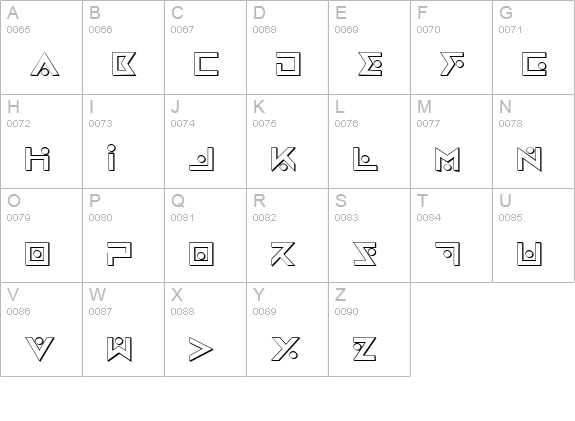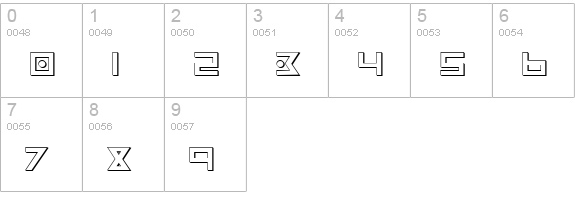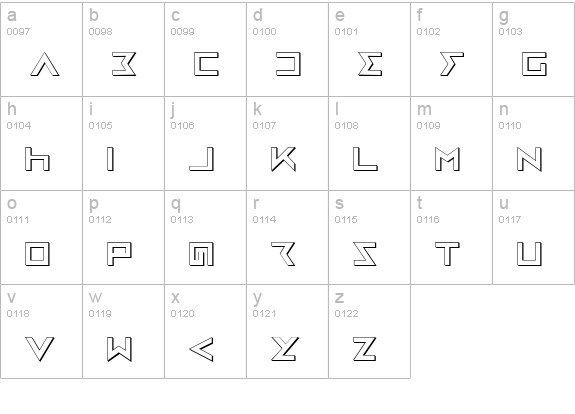
Iron Cobra 3D font is a bold and striking typeface that exudes power and strength. With its three-dimensional effect, this font adds depth and dimension to any design project, making it stand out and grab attention. The sharp angles and sleek lines of Iron Cobra 3D give it a modern and edgy look that is perfect for posters, logos, and other graphic designs. What sets Iron Cobra 3D font apart is that it is not only visually impressive, but it is also free to download. That's right, this eye-catching font is available for download at FontsMarket.com at no cost, making it accessible to everyone looking to add a touch of boldness to their designs. Whether you're working on a personal project or a professional campaign, Iron Cobra 3D font is a versatile and impactful choice that will make your work truly unforgettable.